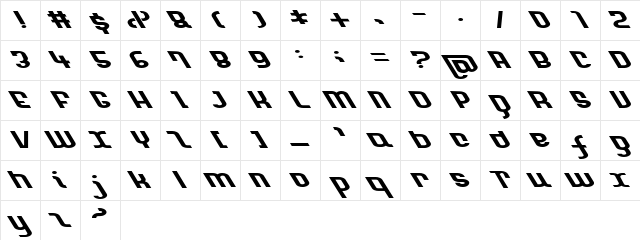
Garcon Normal
Design Context for Garcon Typeface
Garcon is a composed and adaptable typeface that performs quietly and consistently across a wide range of design contexts.